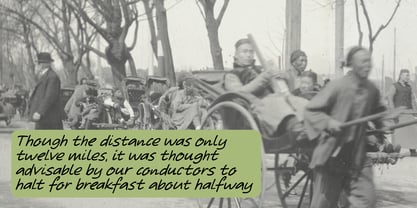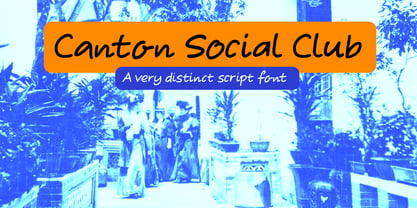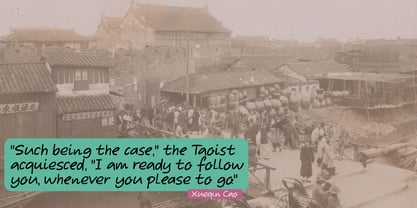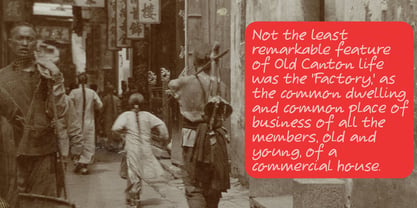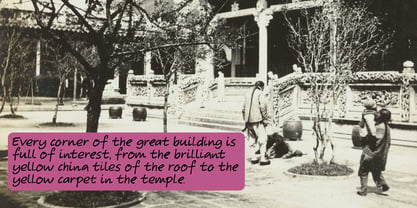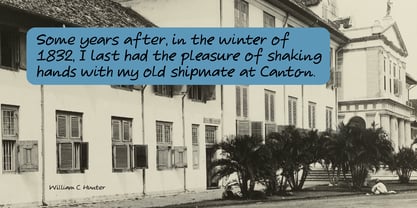
Canton Social Club Pro
Die Schriftfamilie Canton Social Club Pro wurde von David Kerkhoff entworfen und von Hanoded veröffentlicht. Canton Social Club Pro enthält 2 Stile und Familienpaketoptionen. Mehr über diese Familie
I was watching a British detective series the other day. In one of the episodes the main characters went to the ‘Canton Street Social Club’. I liked the sound of it and decided to name a font after it. Canton Social Club is a handwritten script font. A little slanted, a little rough, but quite contemporary and useful for all sorts of projects, like book covers, websites and product packaging.
Hanoded is run by Dutchman David Kerkhoff. His fonts are a mishmash of styles, as he just creates whatever pops into his head. You will find a lot of brush fonts in his collection, as his favourite tools are brushes and Chinese ink, with cartoon style fonts and script fonts complementing his repertoire. Aside from making fonts, David occasionally guides tours in far-flung places, renovates his '30's house and tries reasoning with his wife and (teenage) kids. Not an easy task!